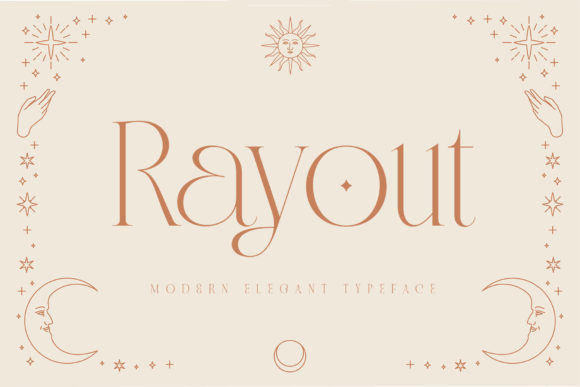
Step into the world of Rayout font, an exquisite serif masterpiece that will awaken your creative soul. Allow your designs to radiate with elegance and sophistication as you embrace the beauty of Rayout. With its meticulously crafted letters, this font exudes a timeless charm that will elevate your projects to new heights.
Dive into the depths of Rayout's versatility and let your imagination soar. It's the perfect companion for creating eye-catching logos, enchanting branding materials, captivating social media posts, and stunning website designs. Rayout's well-balanced structure ensures seamless harmony in every word, making it ideal for both long and short texts.
Unleash your artistic flair and let Rayout transform your designs into captivating masterpieces. Its modern and stylish character adds a touch of contemporary elegance to any project. Whether you're crafting a meme to tickle your audience's funny bone or composing a heartfelt letter, Rayout will add a touch of magic to your words.
Experience the joy of creating designs that resonate with your audience. Rayout's distinctive letterforms and flowing curves captivate the eyes, leaving a lasting impression on all who encounter your work. Embrace the power of storytelling and let Rayout carry your message with clarity and impact.